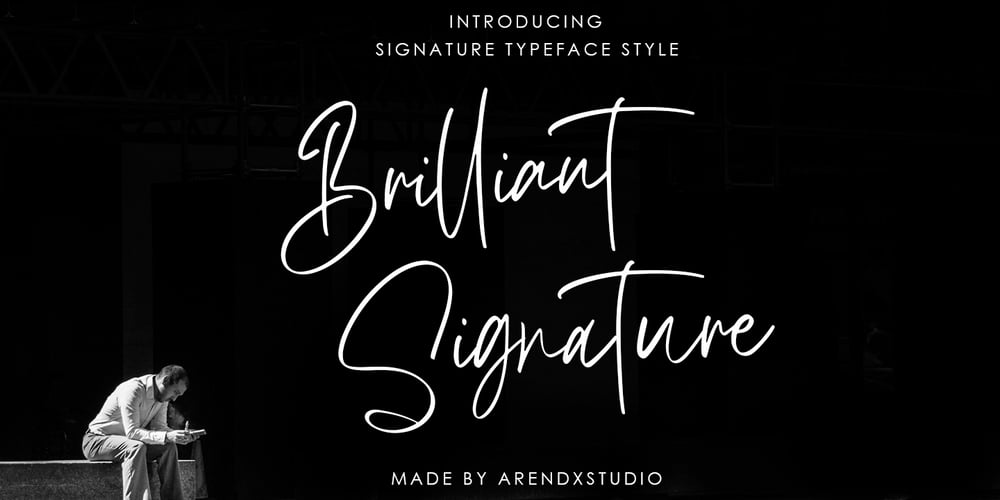
Brilliant Signature
Brilliant Signature font
Brilliant Signature Font Family was designed by Asep Rendi and published by Arendxstudio. Brilliant Signature contains 1 styles and family package options. Brilliant Signature is a handwritten font which is very elegant and modern for you to use and your design interests, be them for logos, branding names, posters, podcasts and so on. There it is! I really hope you enjoy it – comments & likes are always welcome and accepted. More importantly, don’t hesitate to send a message if you have a problem or question. Now just read this, go there and make it happen 🙂